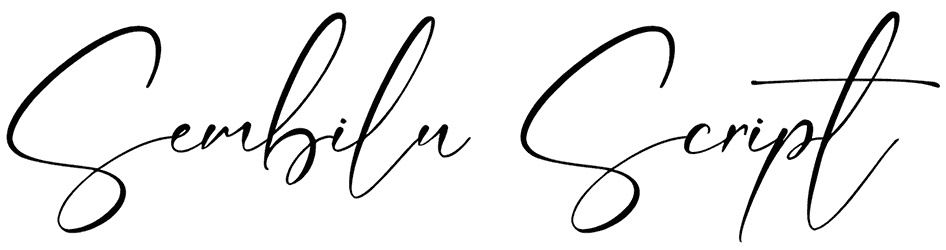
Sembilu Script Font
Let elegance be the first thing people notice about your lettering. All it takes is a calligraphy font, and lucky for you, Sembilu Script is available as we speak. Those cursive letters may not promise a clear text, but you get a fancy touch like nothing else in your artwork.
Weren’t you just asking us for a wedding font? Or did you need help designing certificates or Valentine’s Day postcards? Then there you go. Sembilu Script is full of opportunities!